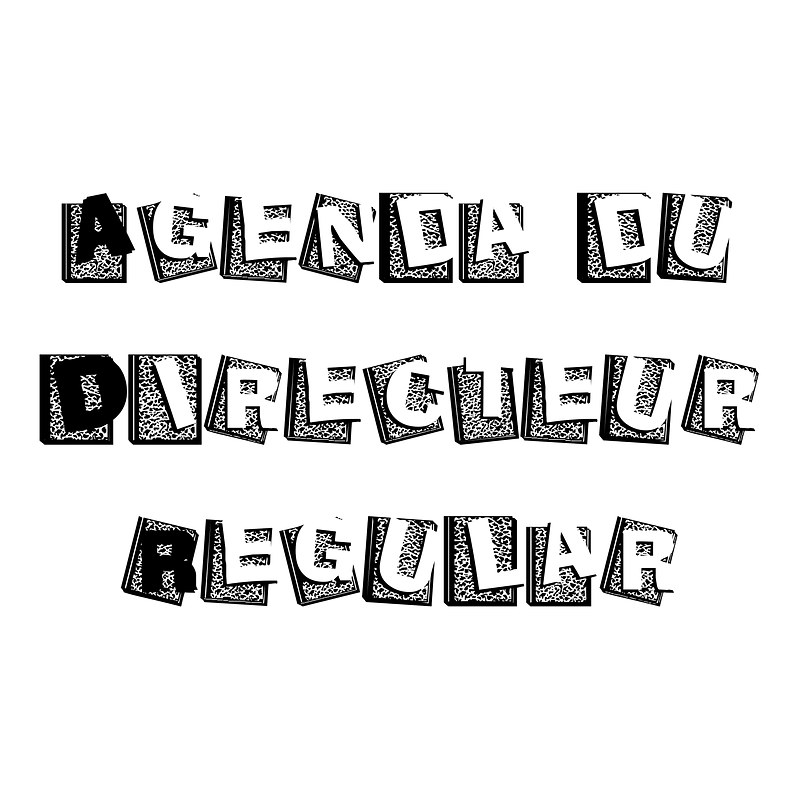
Agenda Font Regular - The extensive family was completely overhauled and relaunched as agenda one. Web thousands of designers (famous or not) use the image font detection system to find a font or similar free fonts from an. You can download the agenda font to your. Moreover, you can embed it to your website with @font. Web agenda font | dafont.com english français español.
Agenda Font Regular - ️ this font has been downloaded 20,000+ times. Web agenda font | dafont.com english français español deutsch italiano português. Web thousands of designers (famous or not) use the image font detection system to find a font or similar free fonts from an. The font family is agenda. Web agenda is one of the iconic typefaces of the nineties.
Agenda Font Regular - The extensive family was completely overhauled and relaunched as agenda one. The font family is agenda. Web agenda regular is the perfect font for all your fun designs. Web agenda font family designed by unknown designer has a total of 14 different styles. Web agenda font | dafont.com english français español deutsch italiano português.
Agenda Font Regular - Web agenda is one of the iconic typefaces of the nineties. The extensive family was completely overhauled and relaunched as agenda one. Web agenda font | dafont.com english français español deutsch italiano português. The font family is agenda. Web agenda regular is the perfect font for all your fun designs.